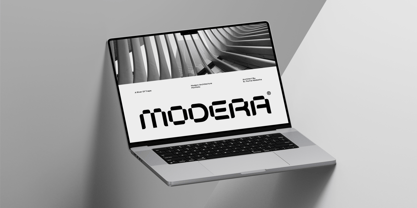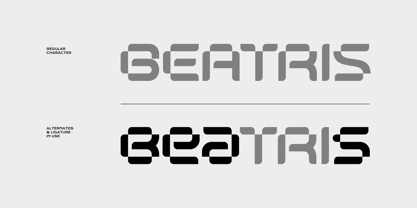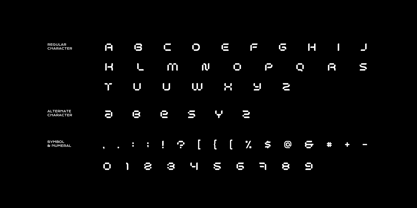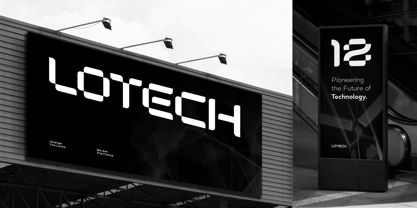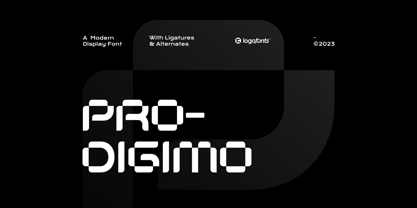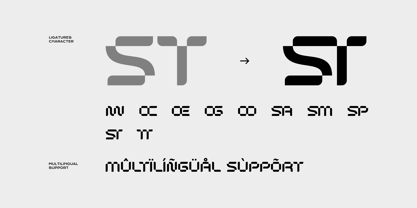
Pro Digimo
by Logofonts
The Pro Digimo Font Family was designed by Anna Safitri and published by Logofonts. Pro Digimo contains 1 styles. More about this family
Pro Digimo is a bold and progressive typeface that pushes the boundaries of modern design. With its clean, geometric forms and sharp lines, it exudes a sense of innovation and technological advancement. The minimalistic design ensures maximum readability, while subtle angular details and dynamic proportions add a sense of forward motion. Perfect for high-tech brands, sci-fi projects, and digital platforms, this typeface captures the essence of the future with its sleek and streamlined aesthetic. Its versatility makes it ideal for both display and body text, providing a cutting-edge look across any medium."
Designers: Anna Safitri
Foundry: Logofonts